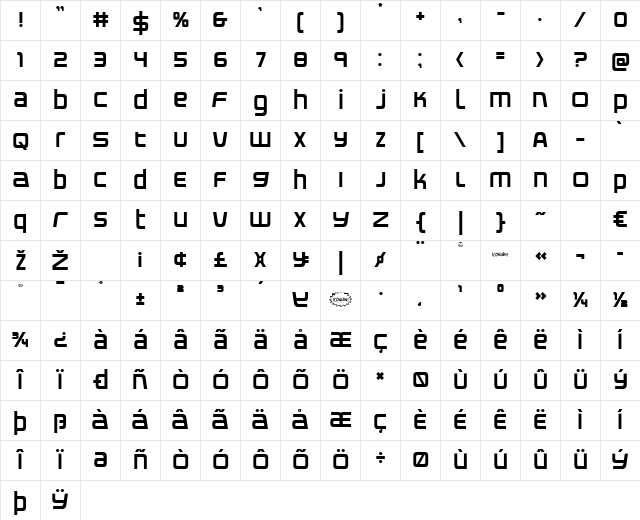
Complete Iconoplastic Regular glyph index. Displaying only characters natively supported by Iconoplastic Regular font.
Iconoplastic is a composed and adaptable typeface that performs quietly and consistently across a wide range of design contexts.